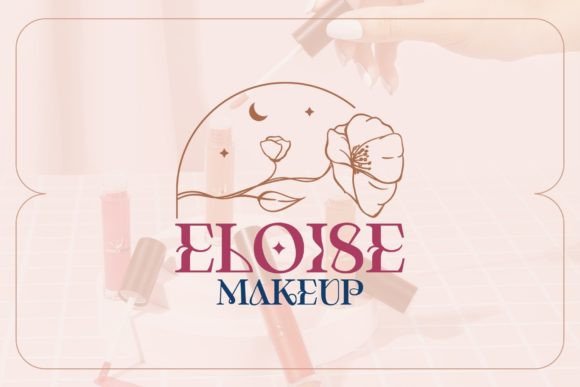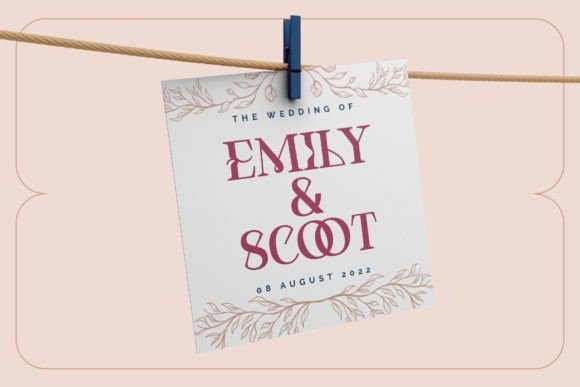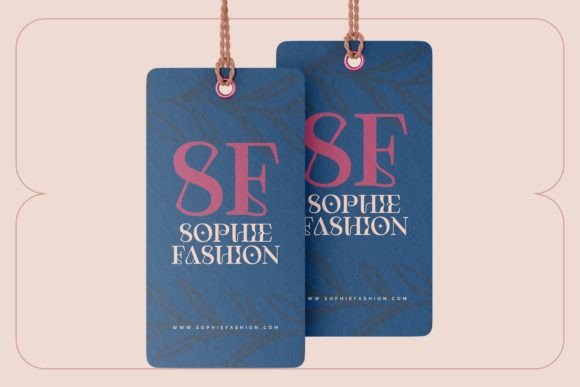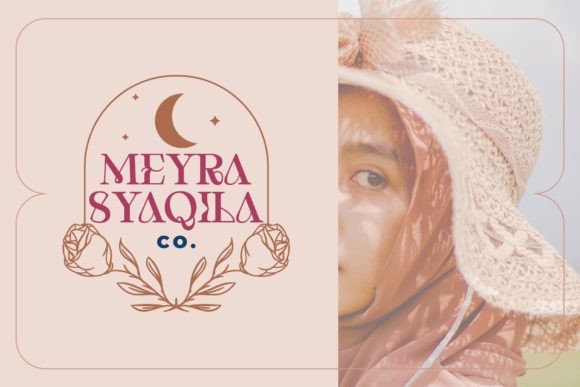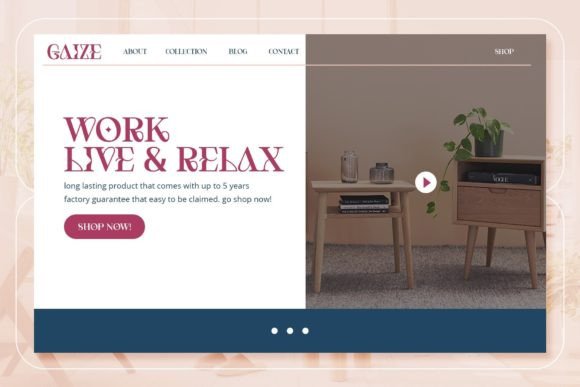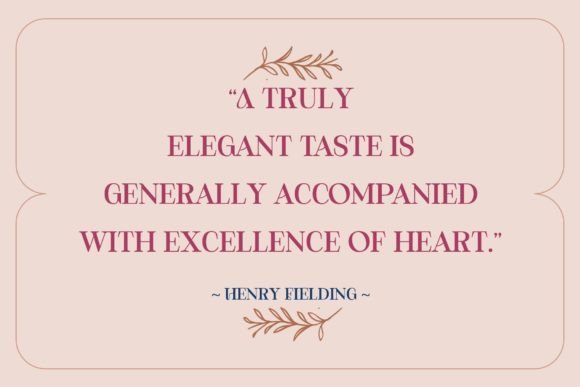
Introduction to Basmo Font
Basmo is a stylish and elegant serif font.
Its exquisite and fashionable character will instantly enhance your projects .
Key Features of Basmo Font